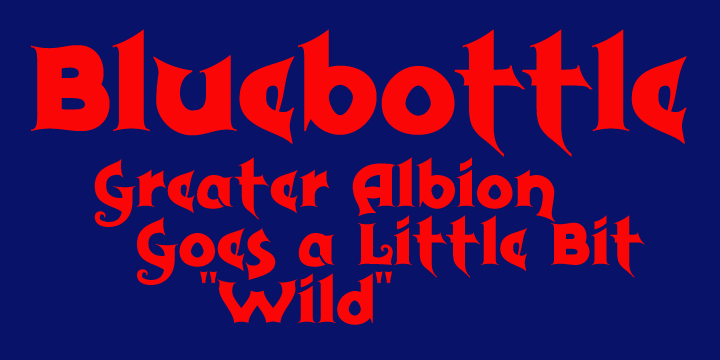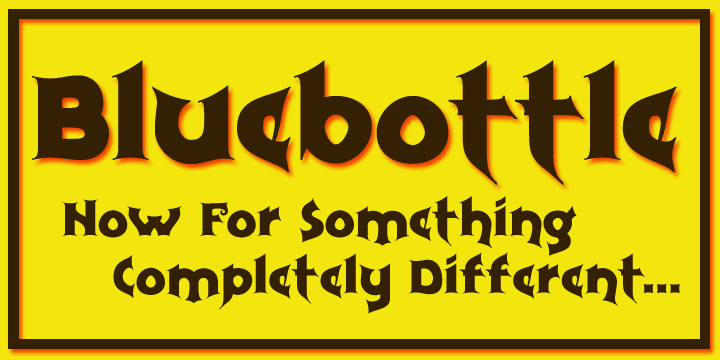
Bluebottle is a display font published by Greater Albion Typefounders.
Bluebottle is a lively fun family of typefaces, a boisterous fun design, BLuebottle brings a distinctive cheerful character where ever it’s used. Use Bluebottle to bring life and fun wherever you will.